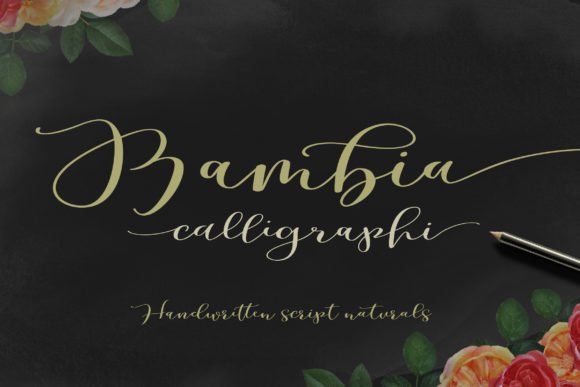
The Perfect Calligraphy Font for Your Next Creative Project
As a designer, have you ever stumbled upon a font that makes your heart skip a beat? Perhaps it was the subtle curve of a handwritten script or the elegance of a beautifully crafted letterform. For me, that moment came when I discovered the Bambia Calligraphi Font. Its beautiful handwritten style is not only visually stunning but also versatile enough to be used in a variety of projects.
The Bambia Calligraphi Font is perfect for designers looking to add a touch of elegance to their work. With its PUA encoded variant, you can access all of the glyphs and swashes with ease, making it a valuable addition to any design toolkit. Whether you’re creating wedding designs, branding materials, or blog titles, this font is sure to make your work stand out.
Bambia Calligraphi Font Key Features
- Font Family: Bambia Calligraphi Font
- Unique Characteristics: Handwritten, elegant, and cursive script with a touch of classic and vintage feel
Bambia Calligraphi Font Review
I’ve had the chance to work with the Bambia Calligraphi Font, and I must say it’s a unique and interesting addition to any design project. ✨ The font’s elegant, cursive script is reminiscent of traditional calligraphy, making it perfect for wedding invitations, special occasion cards, or any other design that requires a touch of sophistication.
Here are some things that work well with the Bambia Calligraphi Font:
- ✨ Elegant and refined script that adds a touch of class to any design.
- ✨ Highly customizable, with a wide range of options for size, color, and style.
- ✨ Works well with both digital and print designs, making it a versatile choice for designers.
- ⚠️ May not be the best choice for projects that require a bold or dramatic font.
- ⚠️ Can be difficult to read in smaller sizes, so it’s best to use it in larger formats.
- ⚠️ Limited language support, so it may not be suitable for projects that require a wide range of languages.
Overall, I think the Bambia Calligraphi Font is a great choice for designers who want to add a touch of elegance and sophistication to their projects. While it may have some limitations, its unique script and high level of customizability make it a valuable addition to any design toolkit.
Bambia Calligraphi Font Practical Application Guide
For the best results, use the Bambia Calligraphi Font in conjunction with a serif or sans-serif font to create a visually appealing contrast.
Experiment with different font sizes and styles to create a unique and elegant look.
Use the font to create custom graphics, such as watermarks or background textures, to add an extra layer of design.
The Bambia Calligraphi Font is ideal for:
Business cards and letterheads
Graphic design and digital art
Stationery and print materials